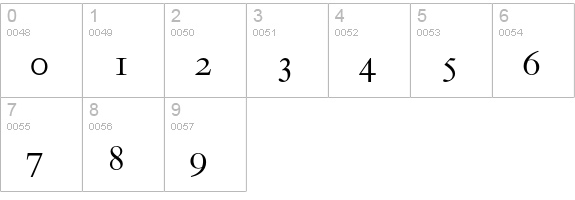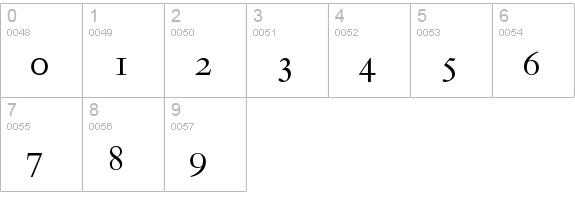
Bembo Small Caps & Oldstyle Figures Font Details
Bembo Small Caps & Oldstyle Figures font exudes classic elegance and sophistication, making it a timeless choice for various design projects. With its refined small caps and graceful oldstyle figures, this font effortlessly adds a touch of sophistication to any text. The harmonious balance of tradition and modernity in Bembo Small Caps & Oldstyle Figures font makes it a versatile option for both print and digital designs. Best of all, this exquisite font is available for free download at FontsMarket.com. Embrace the beauty and charm of Bembo Small Caps & Oldstyle Figures font to elevate your projects to new heights of refinement and style.